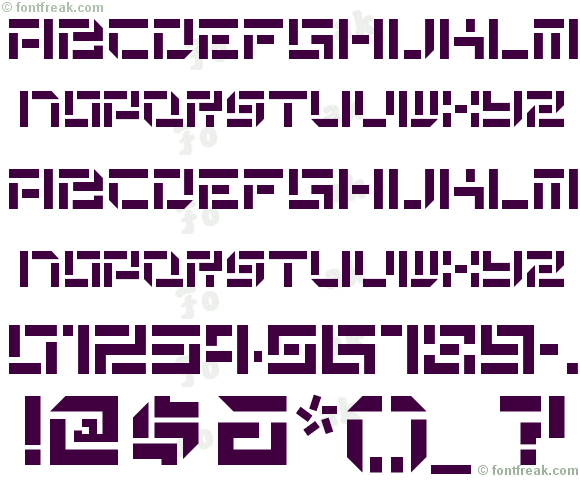
DeStencilNF
About Destencil NF
Destencil NF, designed by Nick Curtis in 2003, is a striking display typeface that embodies a unique blend of modernity and creativity. This decorative font showcases a playful aesthetic with its geometric shapes and vibrant personality. The letters feature a medium stroke weight, ensuring readability while still standing out with their distinctive character. The spacing is thoughtfully balanced, allowing for smooth legibility that enhances its visual appeal. The design incorporates playful curves and angles, creating a fun yet sophisticated vibe that draws attention.
This versatile font is ideal for a variety of creative projects. Its lively character makes it a perfect choice for eye-catching movie posters, where it can convey a sense of excitement and intrigue. Additionally, the Destencil NF font is well-suited for restaurant menus, giving a modern touch that can elevate the dining experience. Its unique design also lends itself well to event flyers, especially for festivals or art exhibitions, where a bold statement is essential. Furthermore, graphic designers can employ this font in branding projects, where a distinct identity is crucial for small businesses looking to make their mark.
The target audience for Destencil NF includes graphic designers, small business owners, and content creators who seek a font that combines creativity with functionality. By using this font, they can effectively communicate their brand's personality and engage their audience.